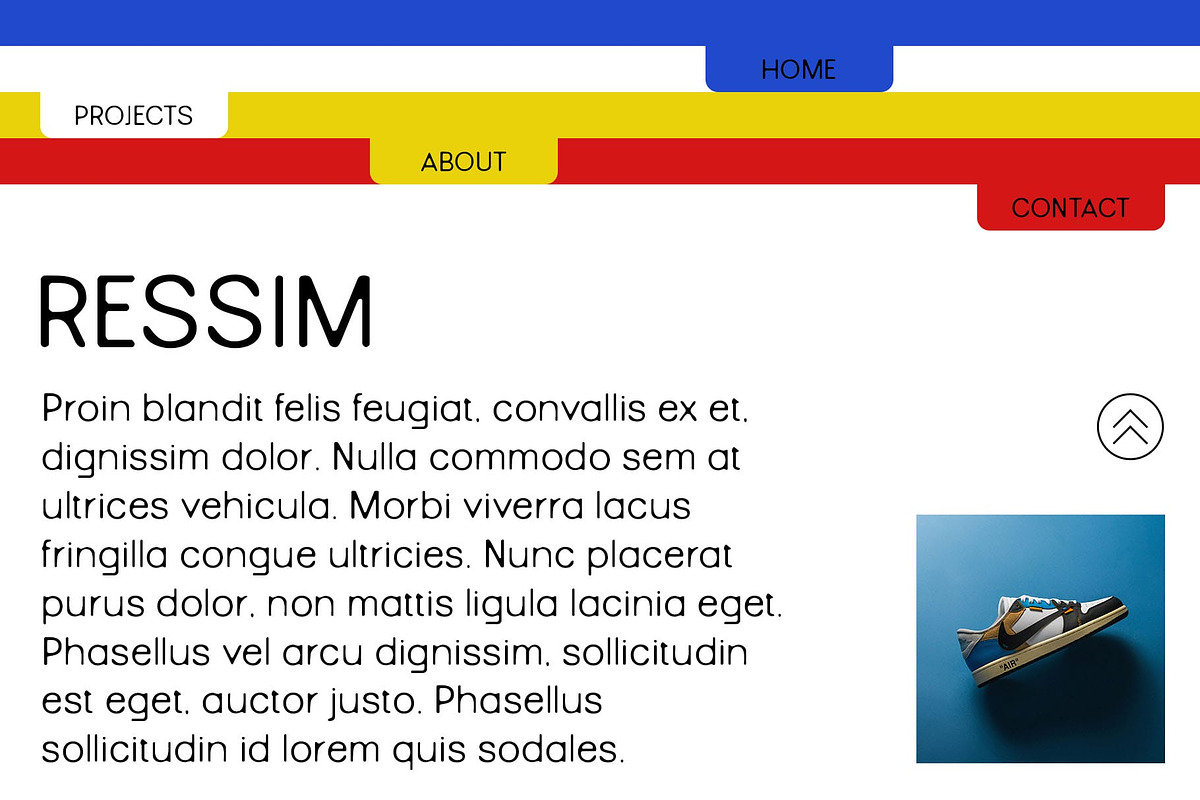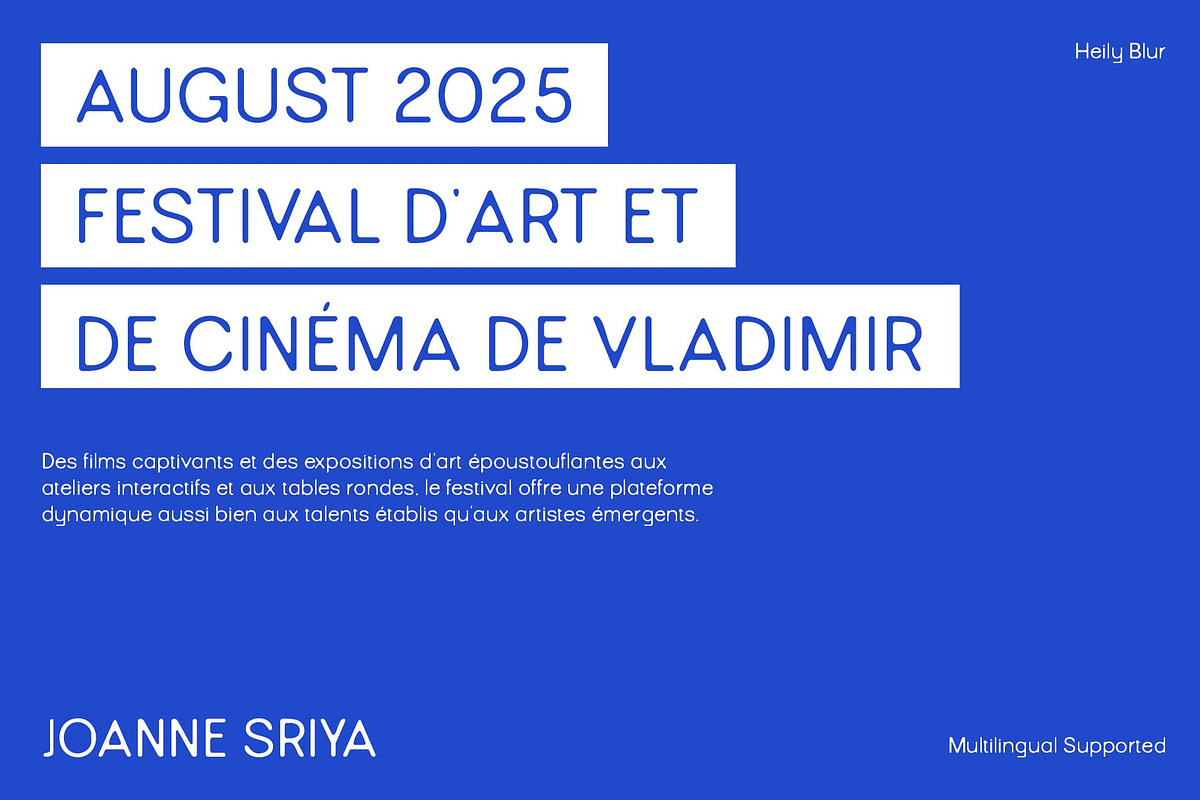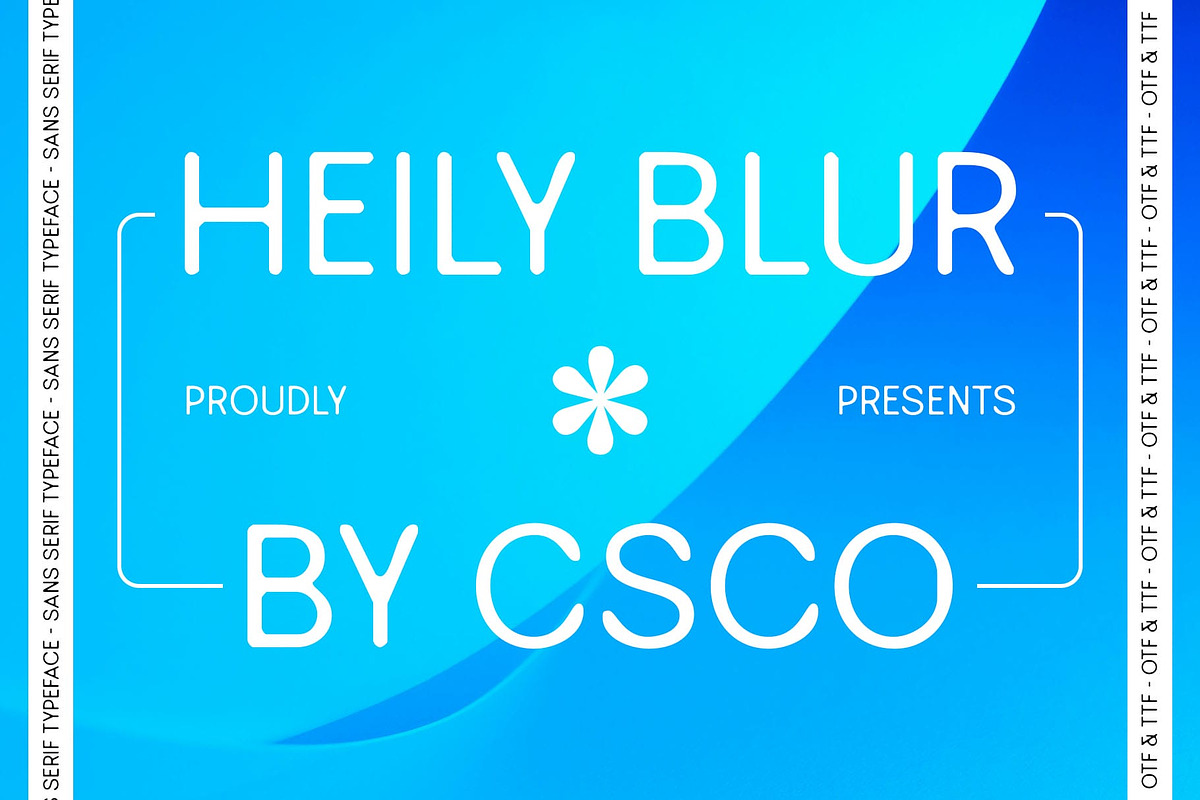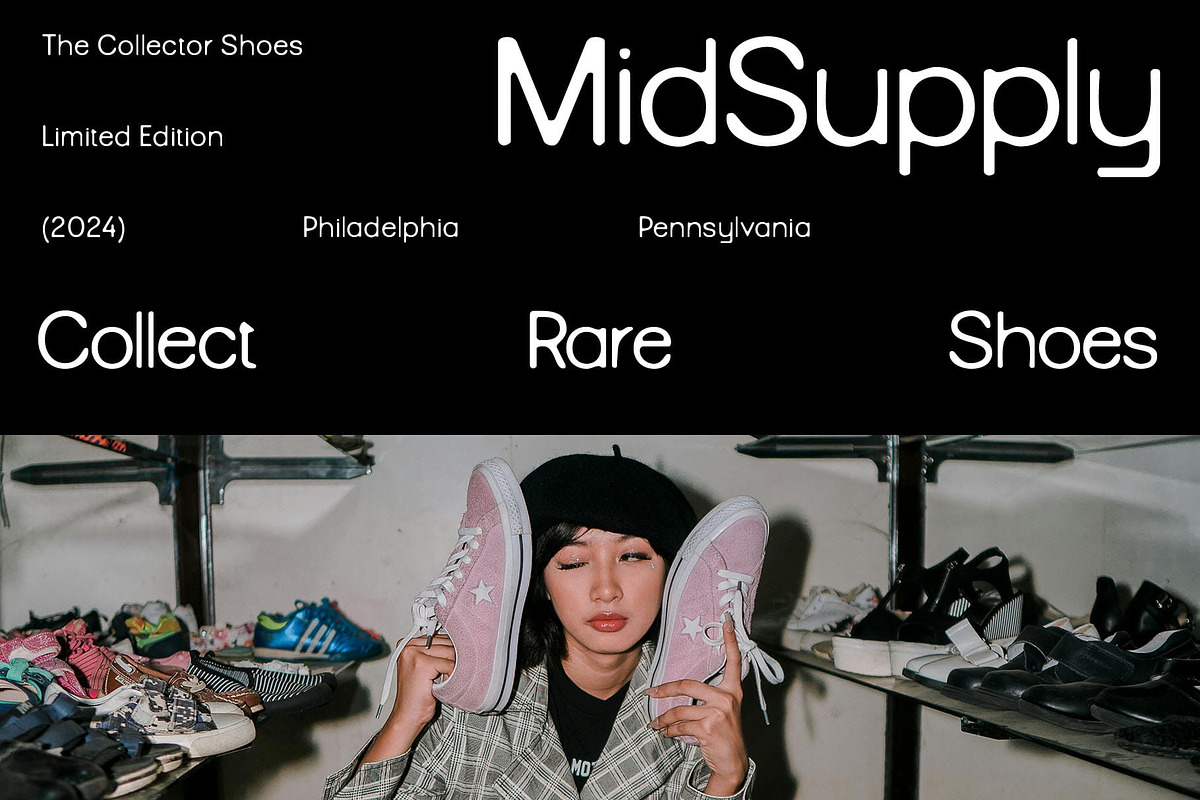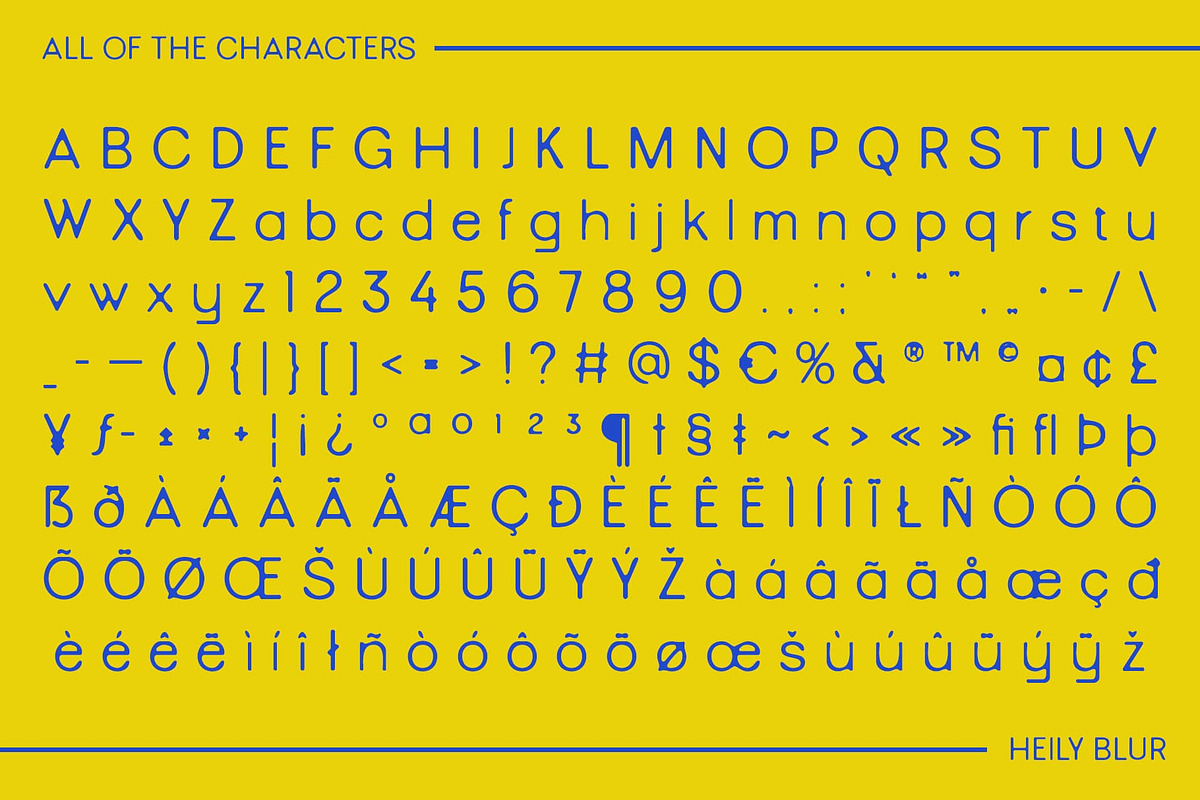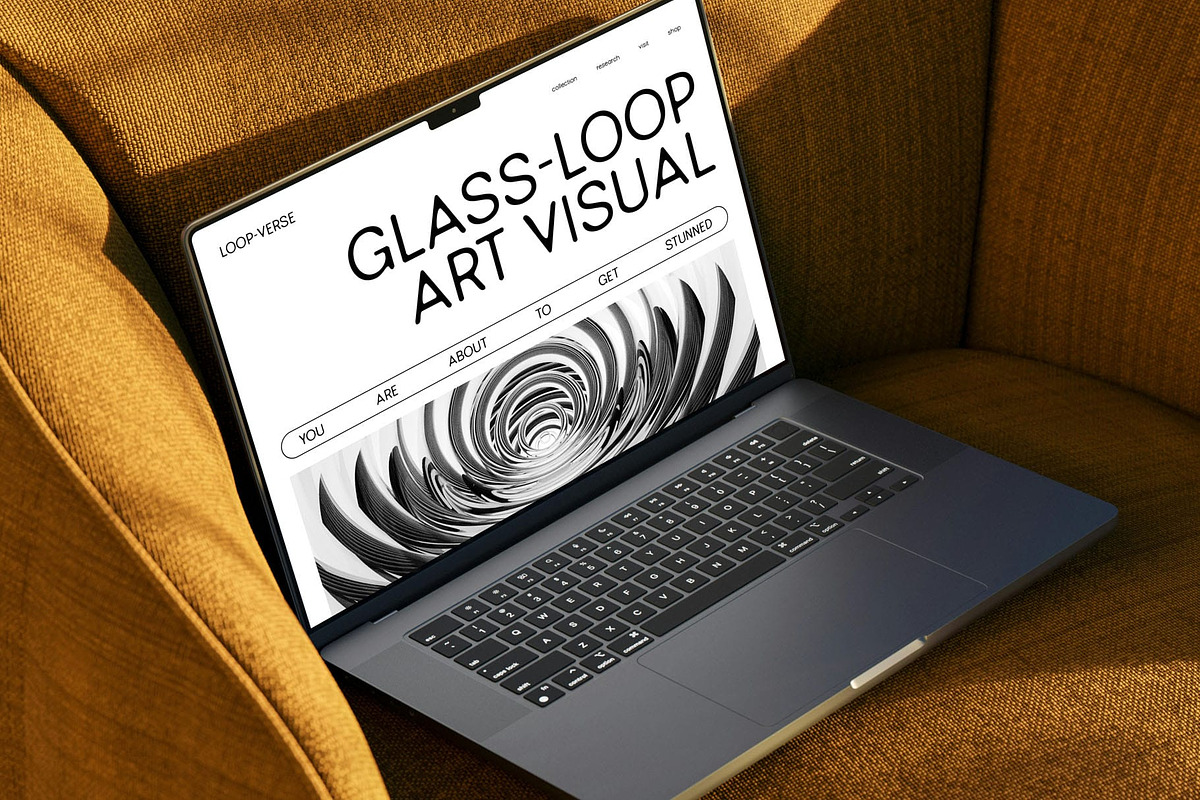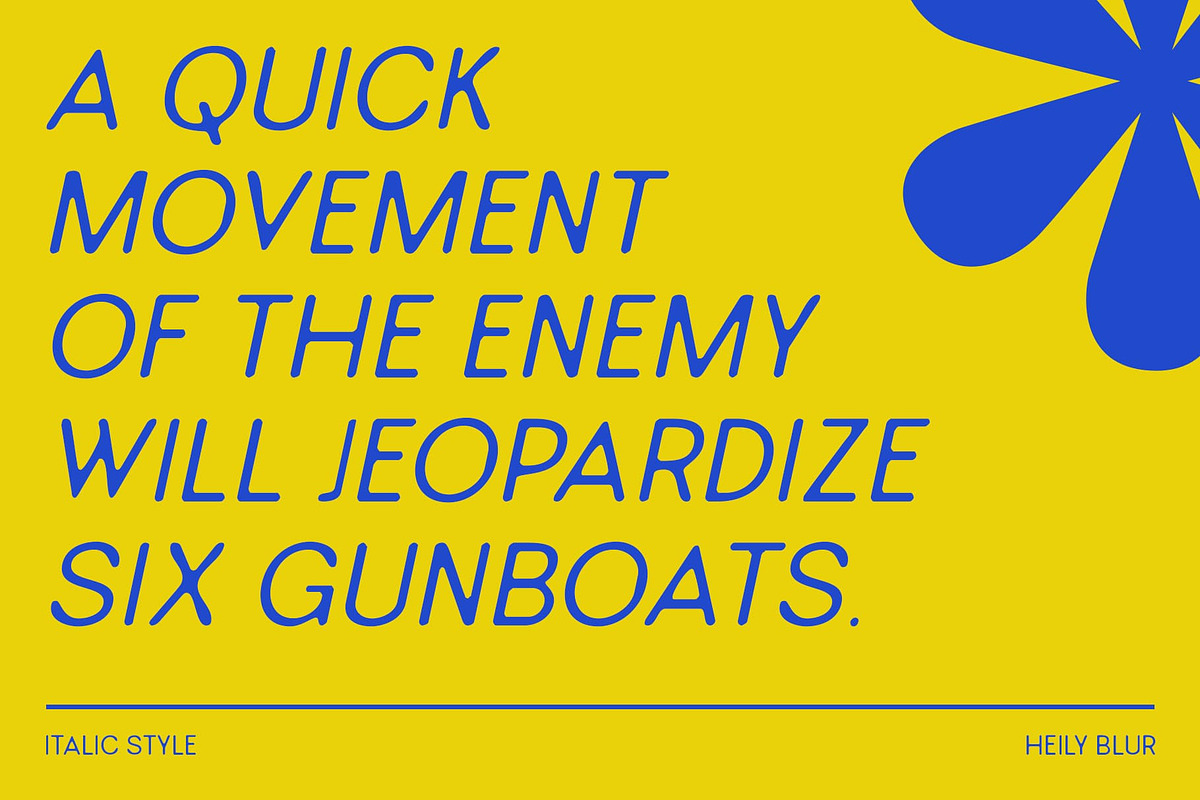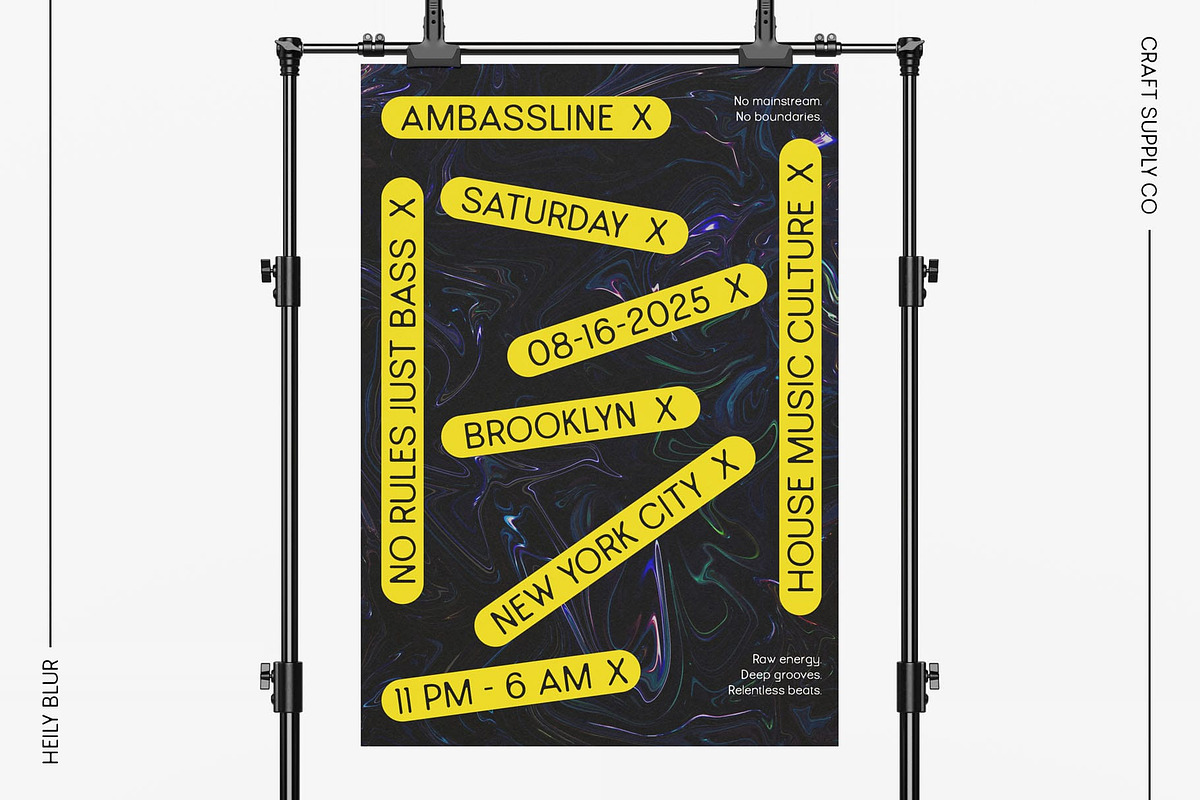
Heily Blur
Heily Blur Font: Modern, Bold, and Experimental
Contemporary Sans-Serif with a Grotesque Aesthetic Heily Blur is a modern sans-serif font that blends clean geometric structure with a grotesque aesthetic, creating a strong yet refined visual impact. Its bold letterforms maintain excellent readability, making it ideal for branding, editorial layouts, and digital interfaces. Designed for both modern and experimental projects, this font seamlessly adapts to various creative applications.
Subtle Blur Effect for a Futuristic Touch Designed with a unique blur effect, this font adds a sense of movement and distortion, creating a visually intriguing, almost dreamlike quality. The soft edges bring an experimental and avant-garde feel, making it ideal for progressive and artistic design projects.
Perfect for Modern Branding and Innovation Whether used for branding, UI/UX design, or futuristic typography, Heily Blur effortlessly adapts to high-impact visuals. It complements logos, posters, album covers, and fashion-forward layouts, giving designs an edgy and contemporary presence.
Versatile for Creative and Digital Applications Heily Blur thrives in bold typographic compositions, where its blurred edges and grotesque form enhance the depth and uniqueness of any text. Perfect for designers looking to experiment with modern, digital, and abstract aesthetics, this font is a powerful tool for those seeking a cutting-edge typographic experience.
- Heily Blur Regular
- Heily Blur Italic